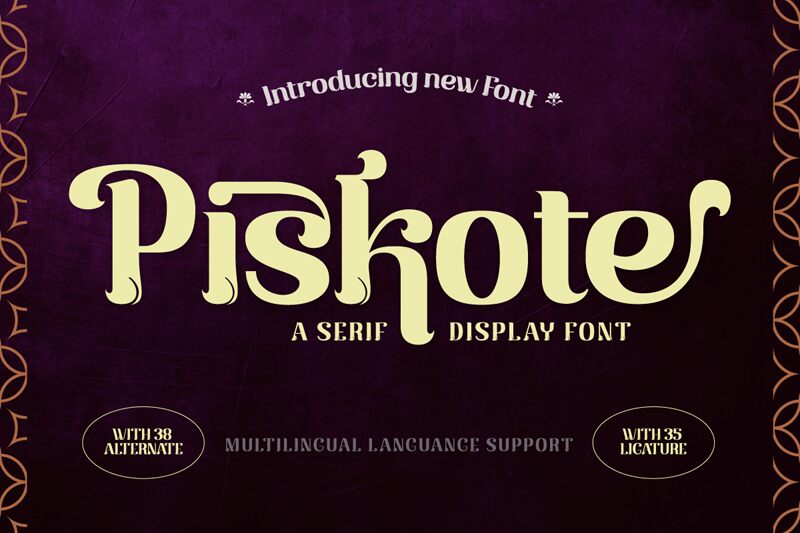
Piskote Trial Regular
Piskote font by Twinletter is a vintage-inspired bold display font with an ornamental and sophisticated look. Its elegant decorative appearance adds uniqueness to each typewritten character, captivating the reader almost immediately.